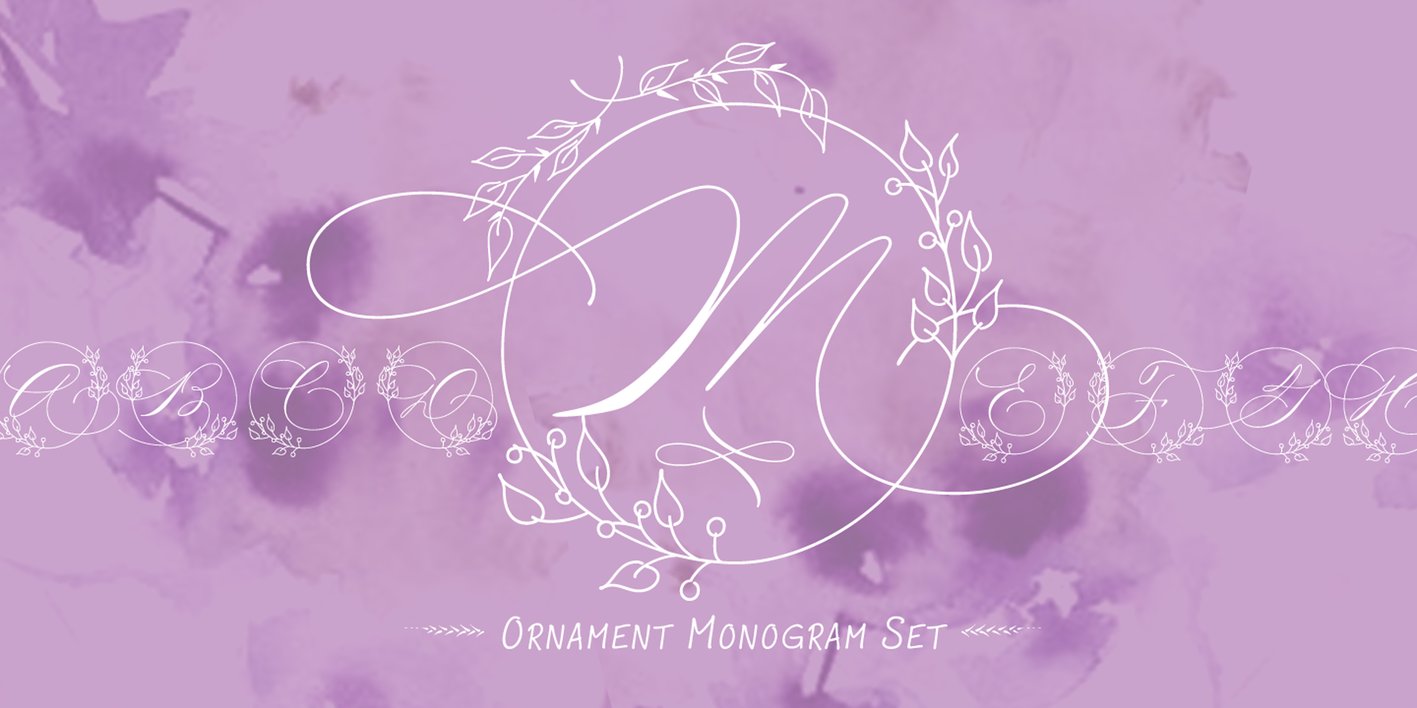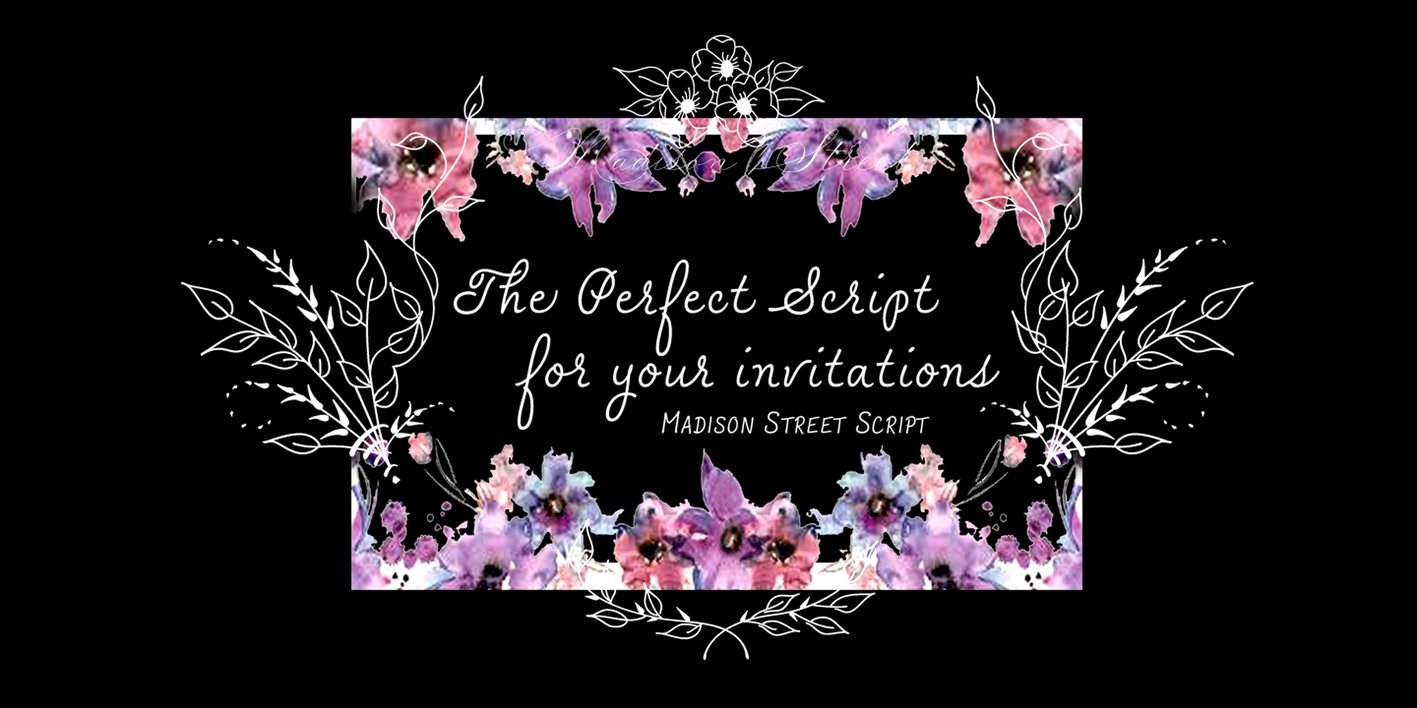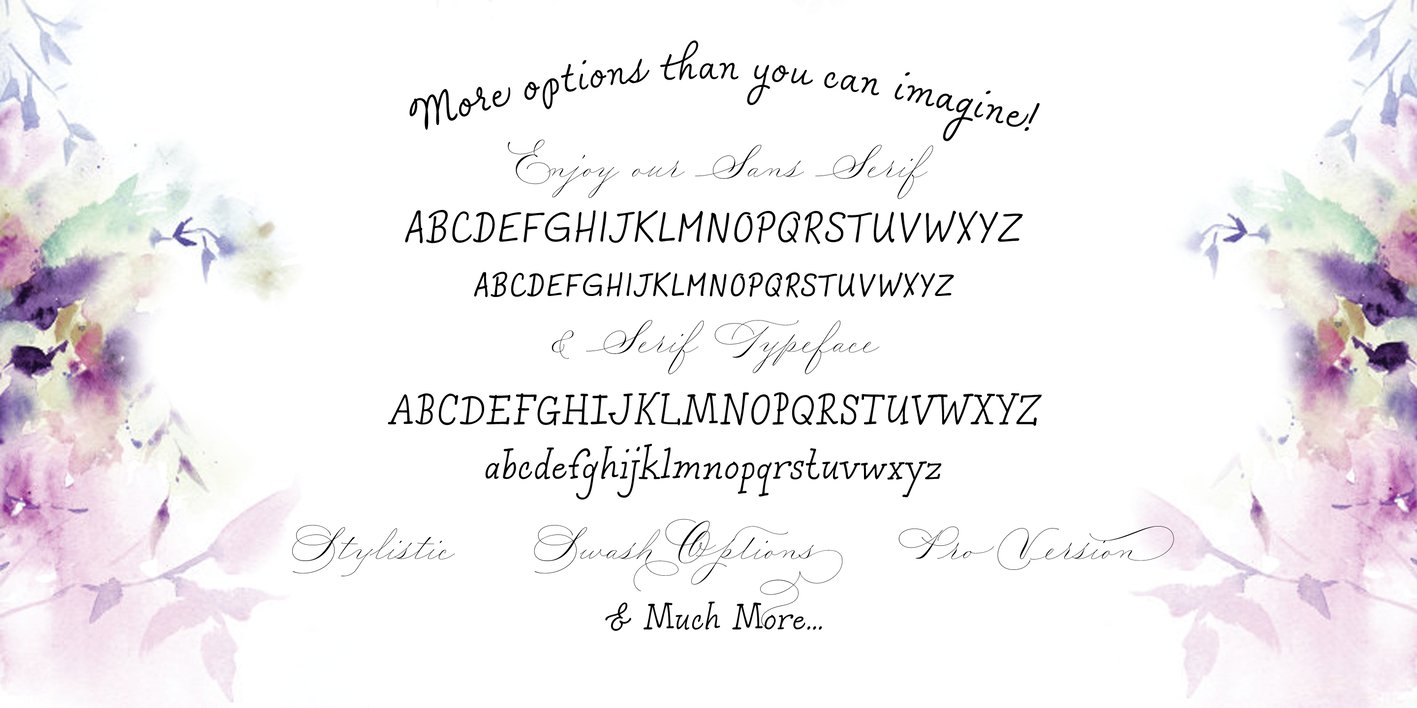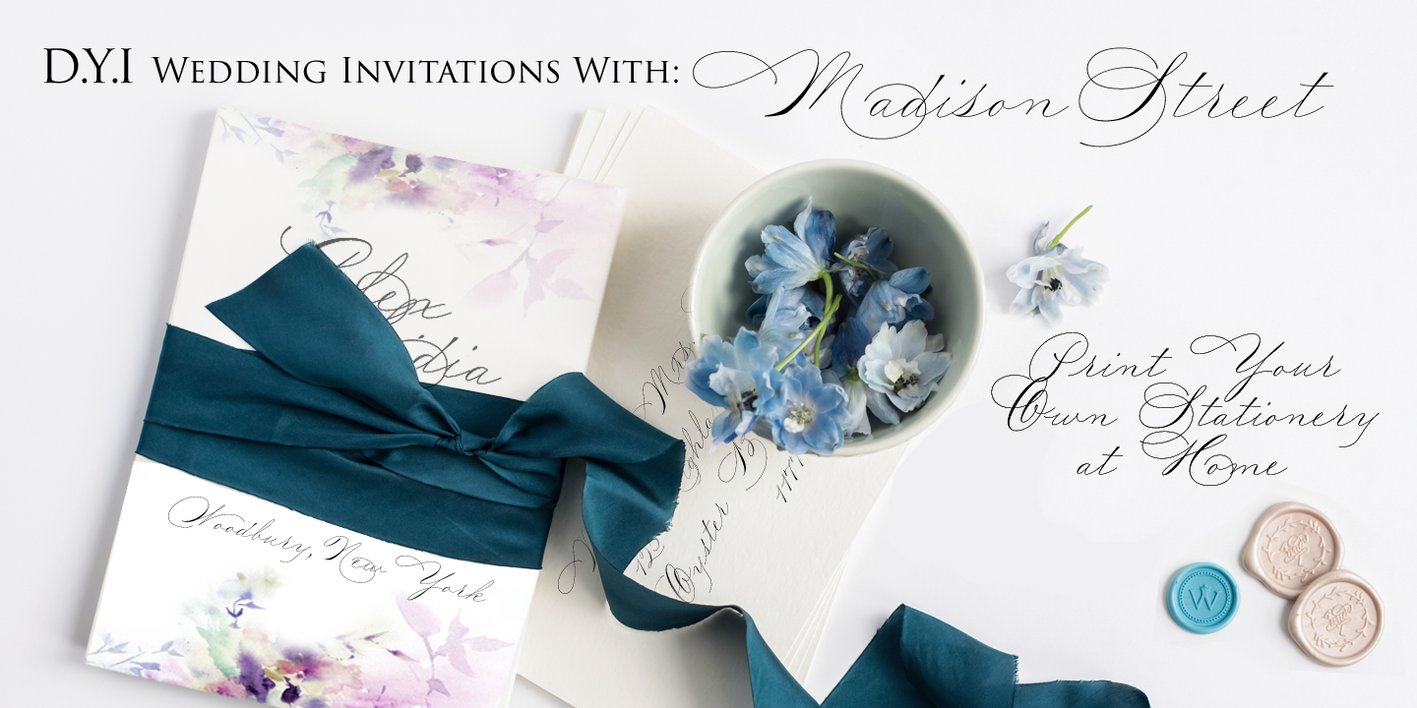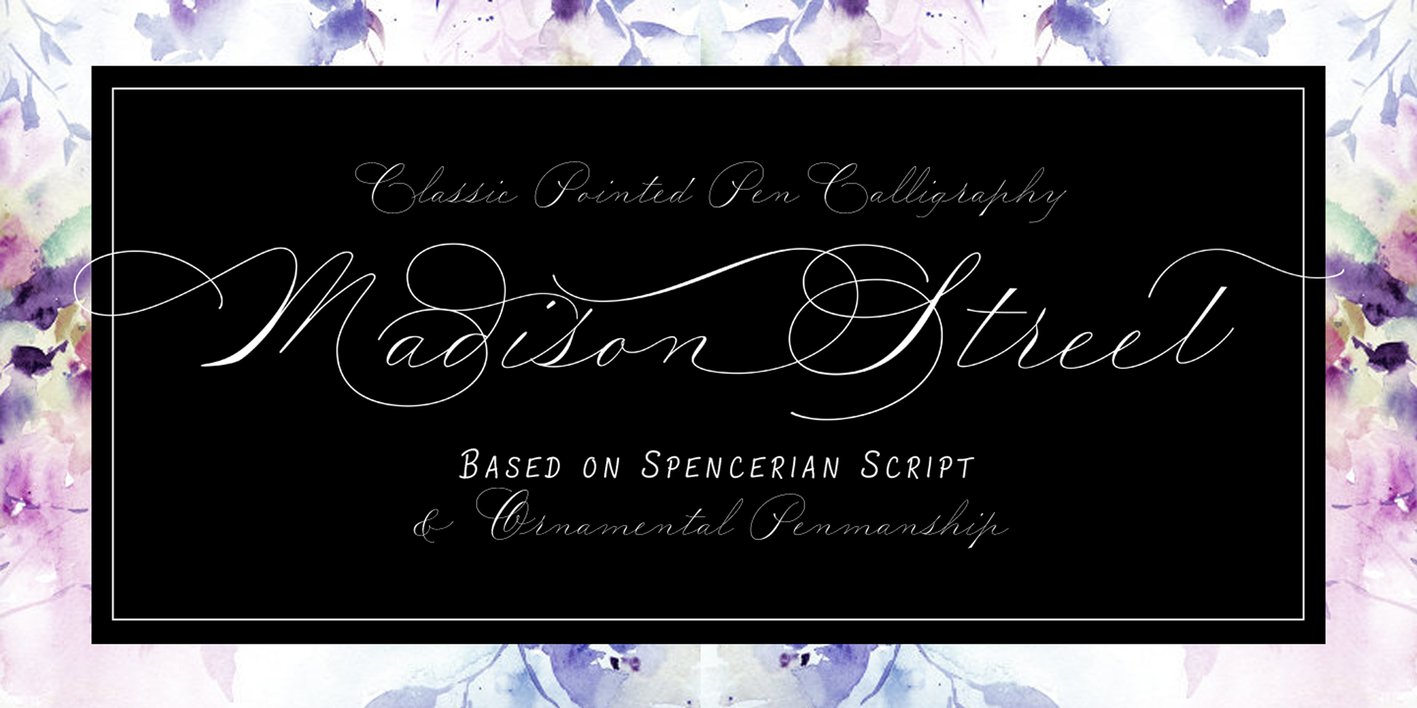
Madison Street Font
Madison Street Font is perfect for vintage advertising, retro brand identity, classic signage design, nostalgic packaging, heritage restaurant menus, antique shop materials, old-fashioned poster art, traditional barbershop graphics, classic Americana projects, historical society publications, vintage clothing labels, and timeless projects that require authentic, street-inspired typography with classic American charm.
What makes Madison Street Font so exciting is its authentic vintage character and classic American street appeal that captures the nostalgic essence of mid-century urban typography and traditional signage craftsmanship. This typeface features distinctive letterforms with period-appropriate details and handcrafted qualities that evoke the golden age of American street signs and commercial typography. The font's nostalgic character and authentic street credibility make it perfect for brands and projects that want to communicate heritage, authenticity, and the timeless appeal of classic American design traditions.
Madison Street Font typically comes in multiple weights and styles including Regular, Bold, Light, and Distressed variations. Many versions also include vintage ornaments, classic decorative elements, and period-appropriate symbols that enhance the font's historical authenticity and provide designers with comprehensive tools for creating genuinely vintage, street-inspired typography compositions that feel timelessly American.
Whether you're designing heritage brands, vintage-inspired packaging, or classic Americana materials, Madison Street Font delivers exceptional authenticity and nostalgic appeal that connects with audiences who appreciate traditional American values and classic design sensibilities. Its vintage street presence works beautifully in both large display applications and smaller text settings, maintaining its distinctive period character across all design contexts.
The carefully crafted letterforms of Madison Street Font demonstrate deep respect for American typographic traditions and street signage heritage. Each character has been designed to honor the craftsmanship of traditional sign painters while ensuring excellent readability and contemporary functionality, making it particularly valuable for projects that need to bridge historical authenticity with modern professional requirements.